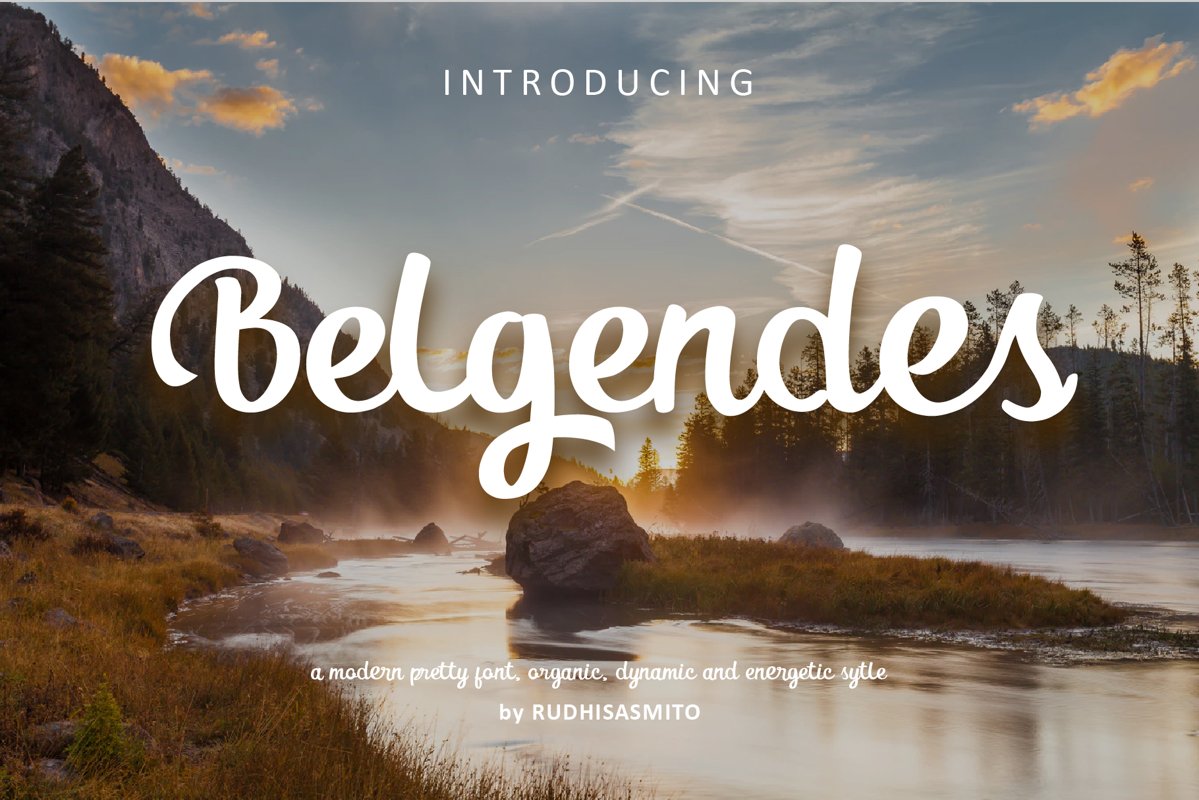
Belgendes Script
Belgendes Script is a modern pretty font, organic, dynamic and energetic style. Belgendes a beautiful for signatures, logos, wedding invitations, website, headline, letterheads, nameplate, labels, bulletins, posters, quotes, badges, branding, greeting Cards, etc. and all project design other. Belgendes comes with elegant style. It contains a full set of uppercase letters, lowercase letters, alternate lowercase letters, a large range of punctuation, and numerals.